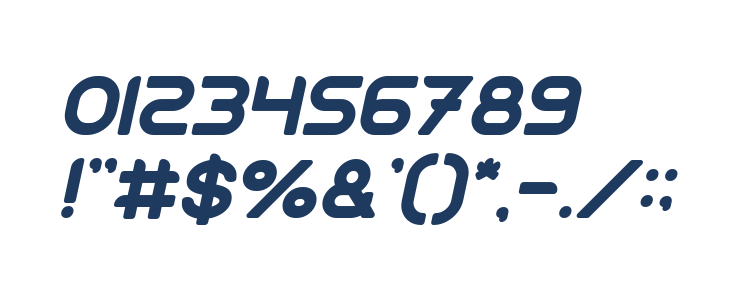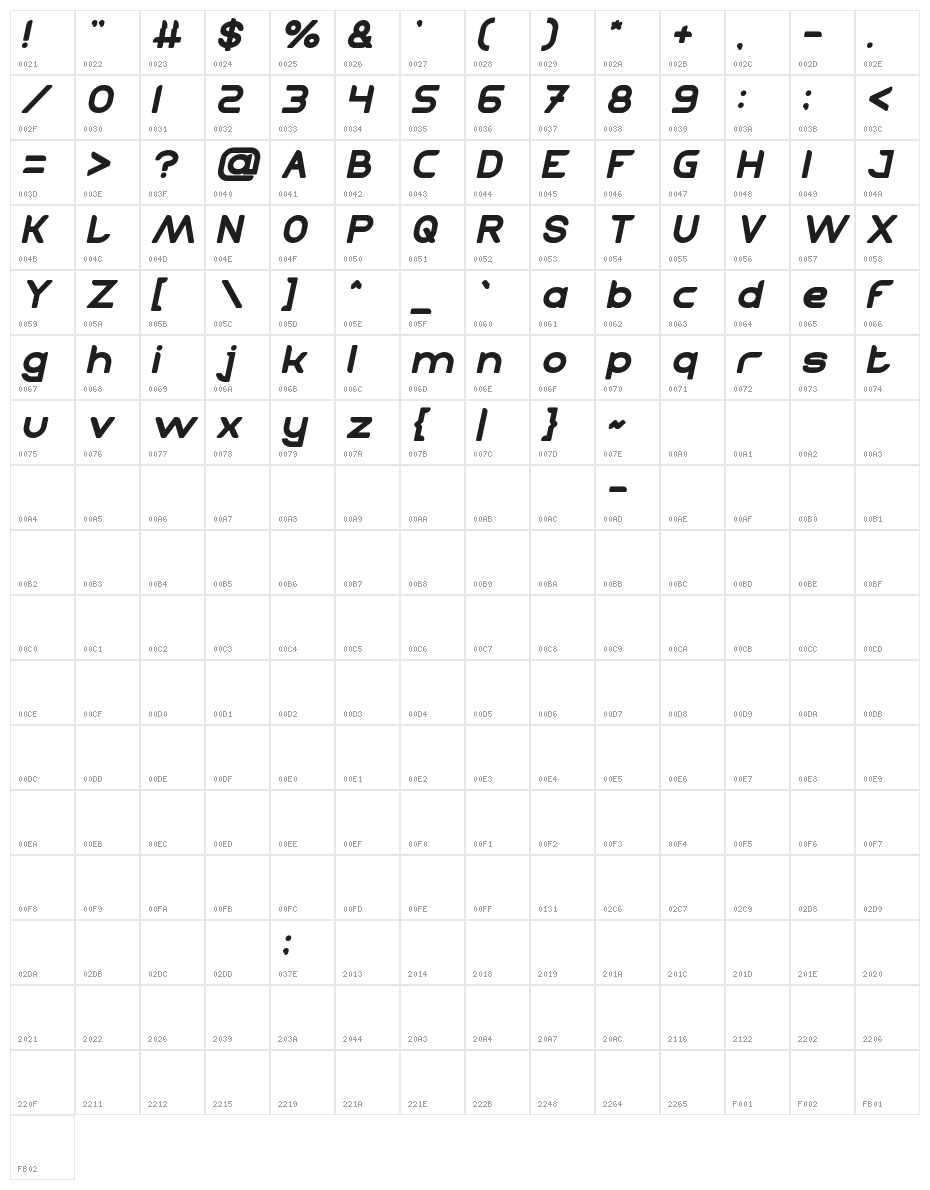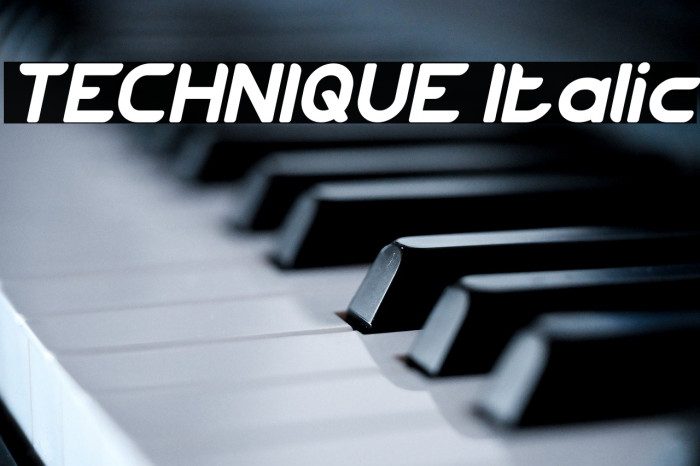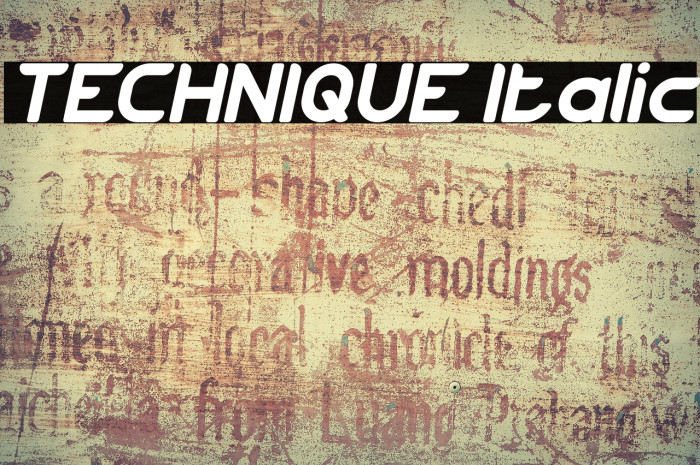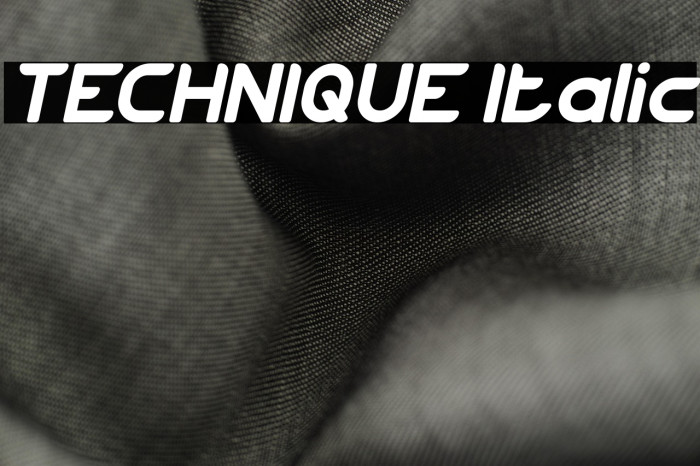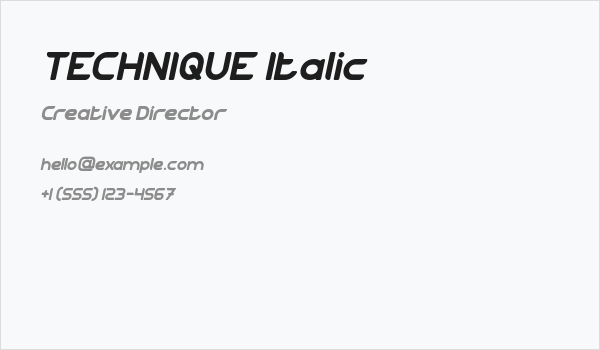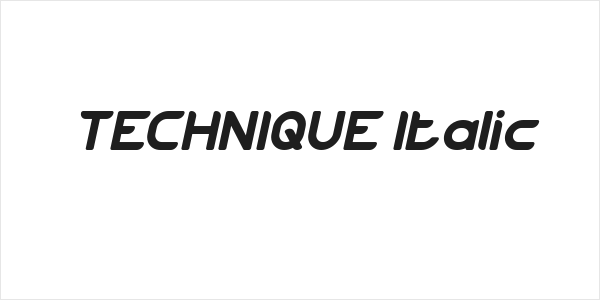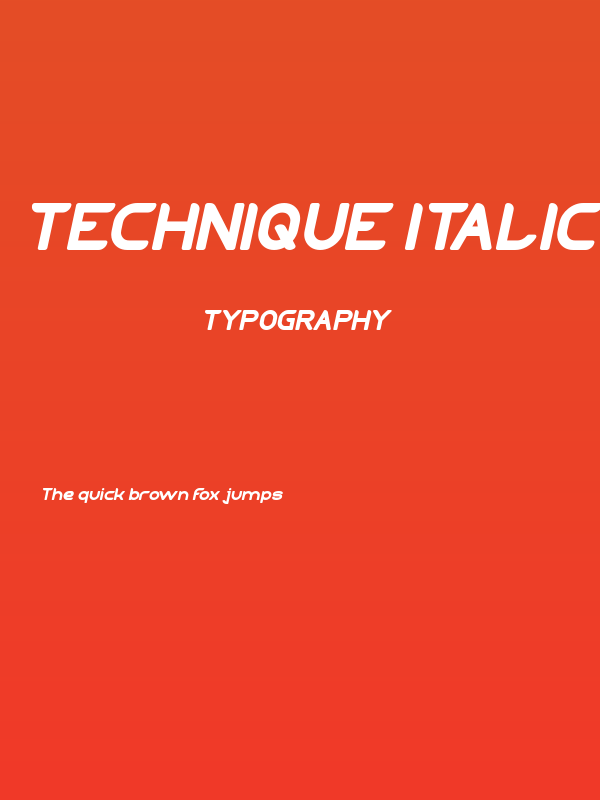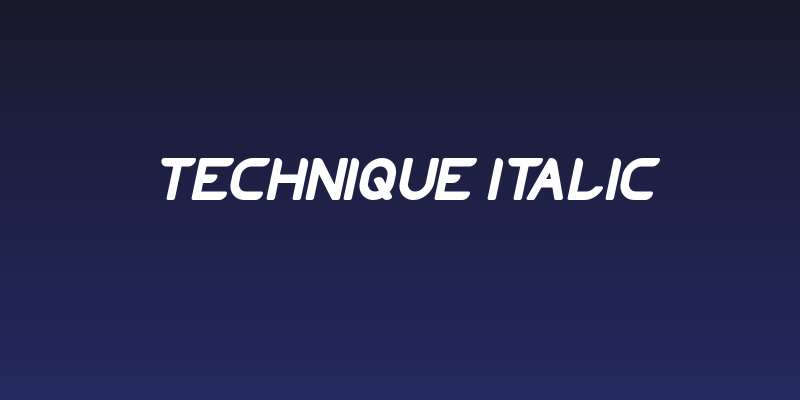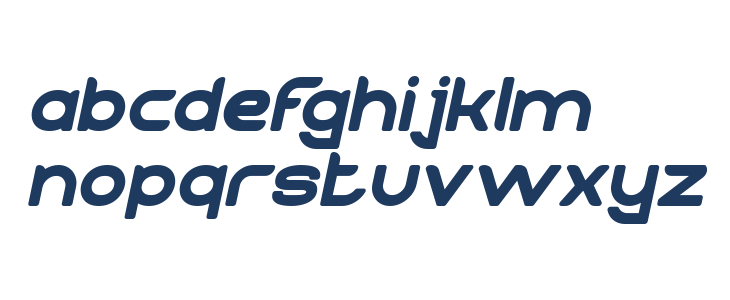
TECHNIQUE Italic Font
TECHNIQUE Italic Description
This font features a modern, italicized style with smooth, rounded edges and a consistent stroke width. The characters are slightly slanted, giving a sense of motion and dynamism. Uppercase and lowercase letters maintain a uniform appearance, with a slight emphasis on curves, particularly in letters like 'a', 'e', and 's'. The numbers are bold and clear, ensuring readability. Special characters are well-integrated, maintaining the font's cohesive look. The overall design is sleek and contemporary, suitable for a variety of digital and print applications.
| Use Case | Headlines, Logos, Digital Media |
| Proposed Projects | Ideal for branding, advertising, digital media, and modern print designs. |